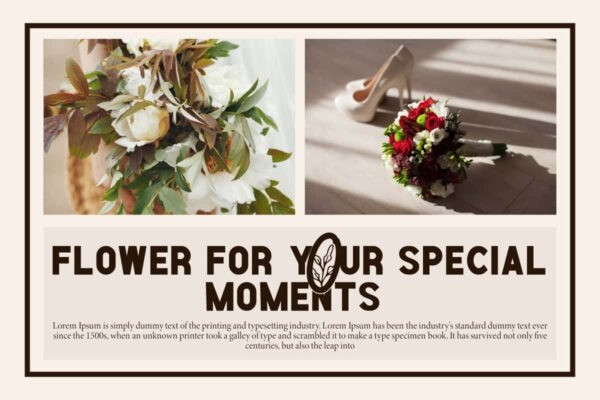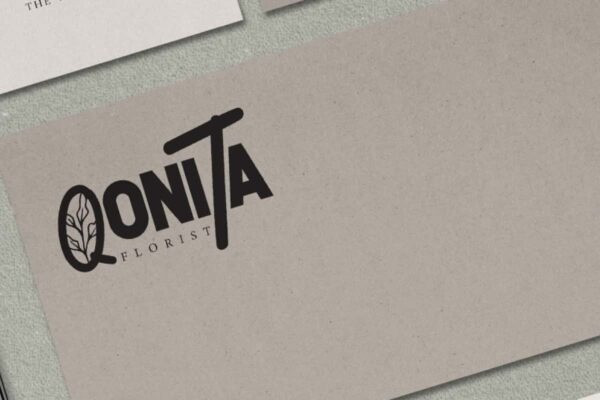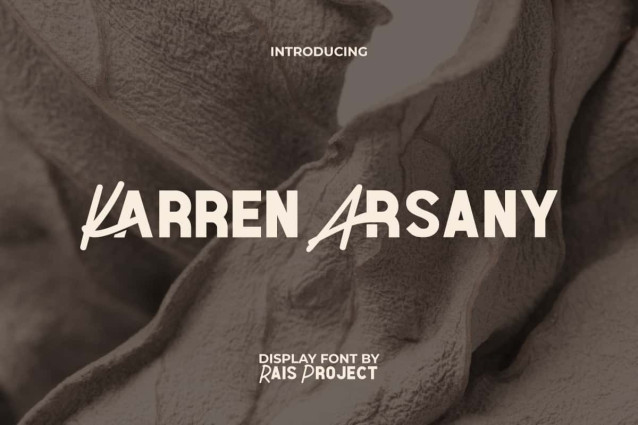
Karren Arsany Font
Karren Arsany Font is a 2 in 1 unique font that can convey an strong bold style, by RaisProject. The uniqueness of this font lies in both variaton of the font style that you can choose, giving it a different appearance. It will be great for poster, label, signage, stationery, custom design, product packaging, quotes, brand image, advertisement, invitation, marketing material, website page, and more!
Karren Arsany Font includes a full set of ALL CAPS for Uppercase and Lowercase Letters, Numerals, large range of Punctuation, and Ligature character. This modern font will be suitable for various industries, such as sports, automotive, fashion, game, barber shop, cafe, event or festival, photography, printing, publishing, etc.